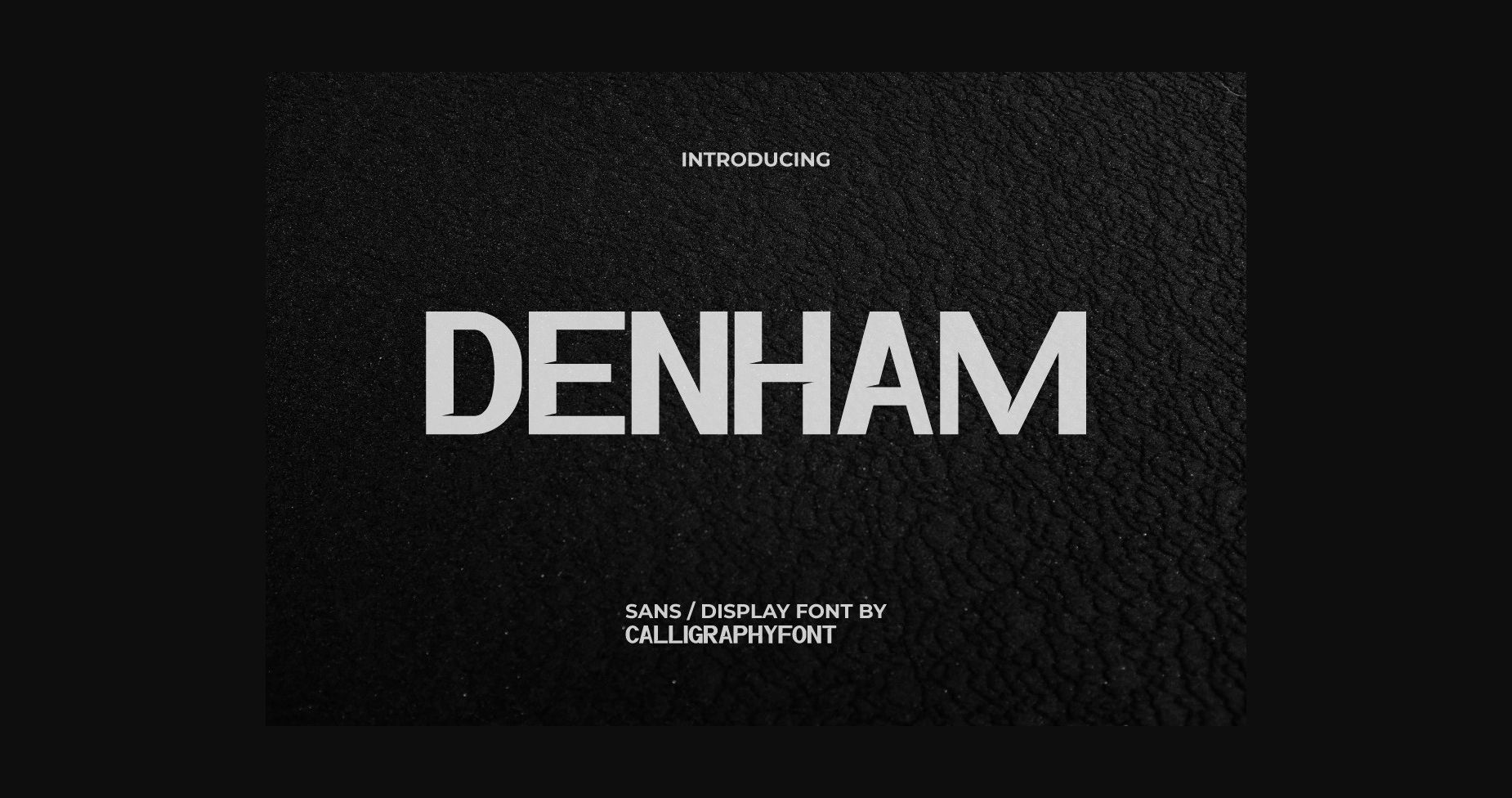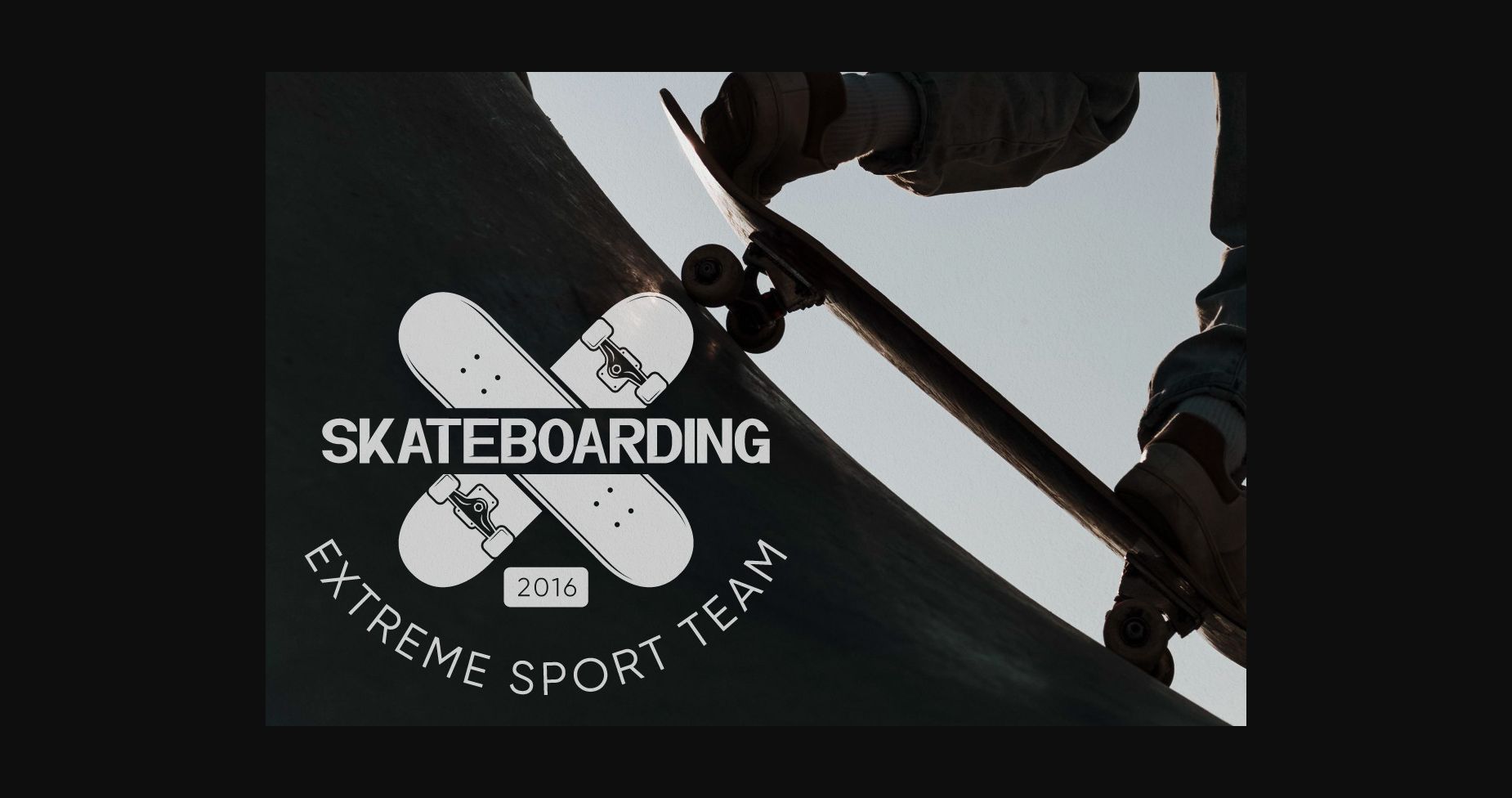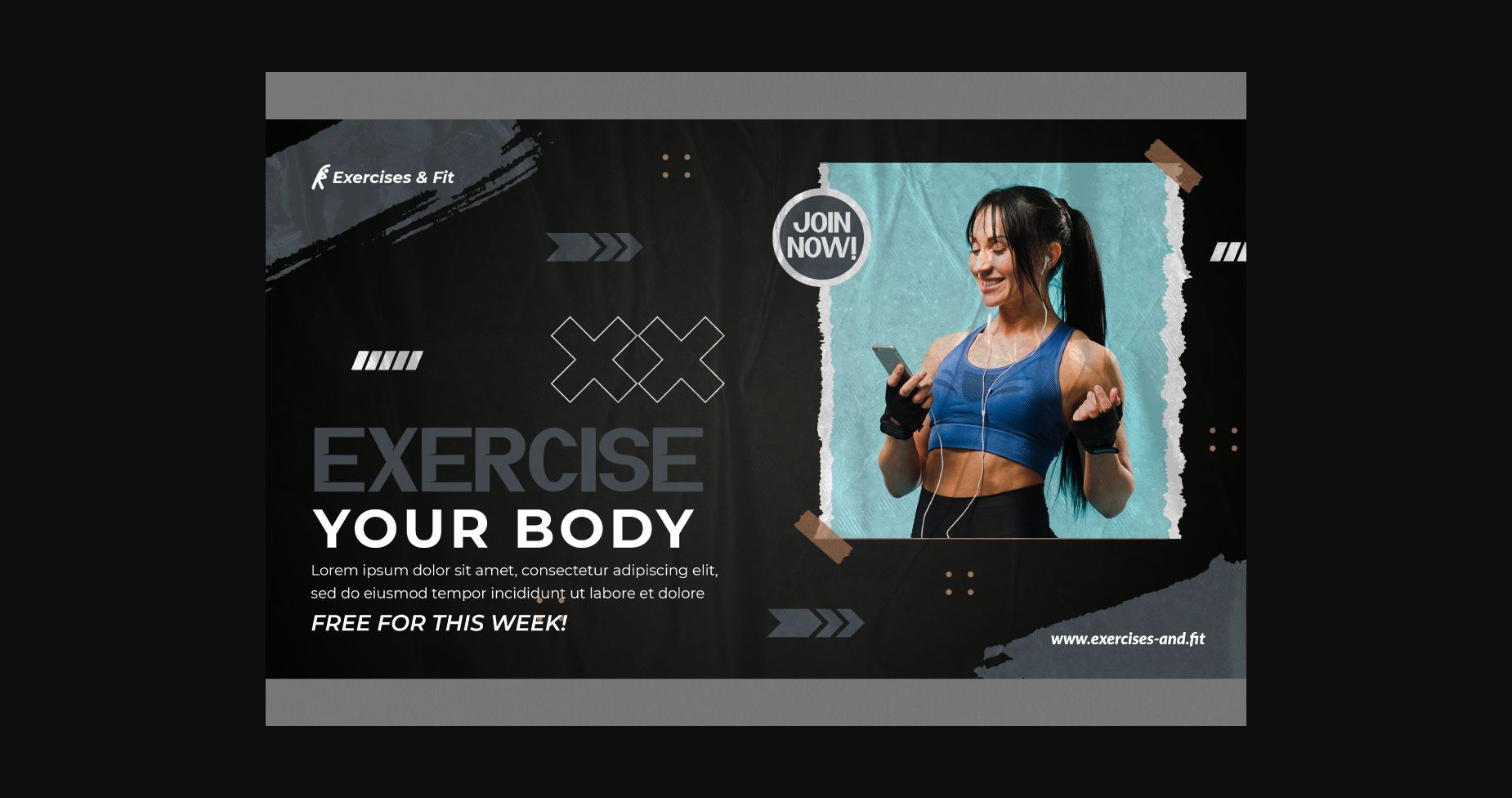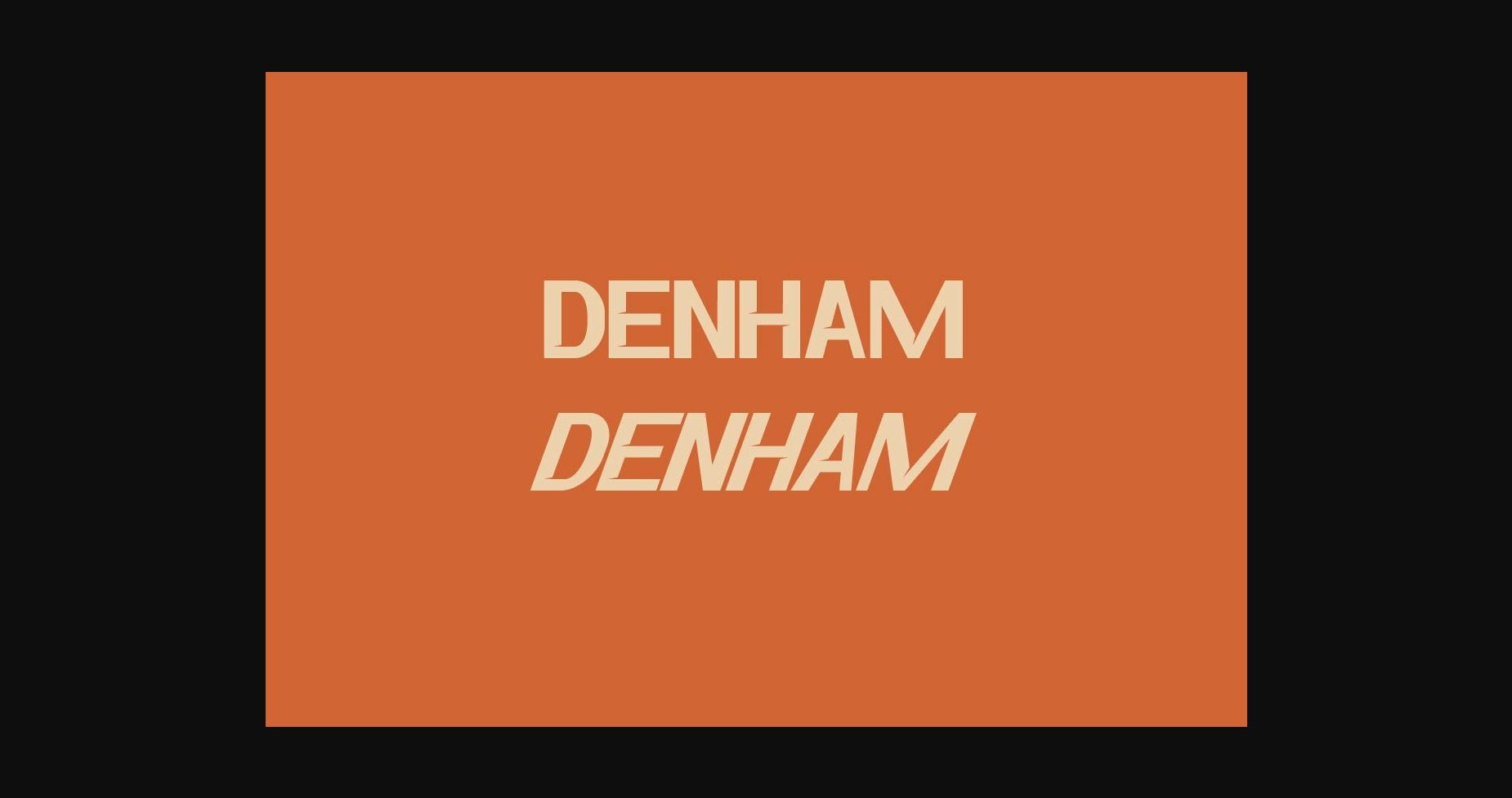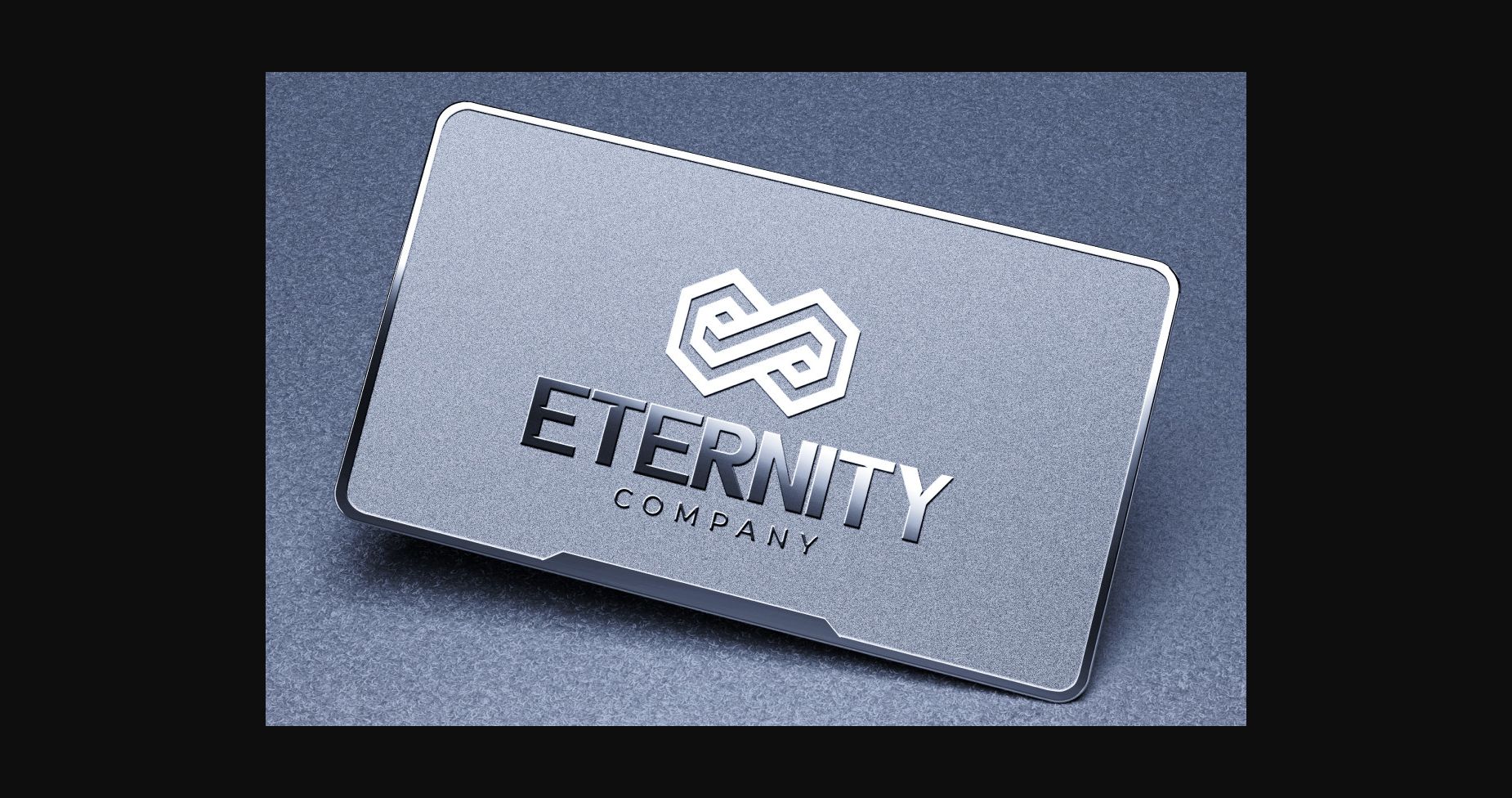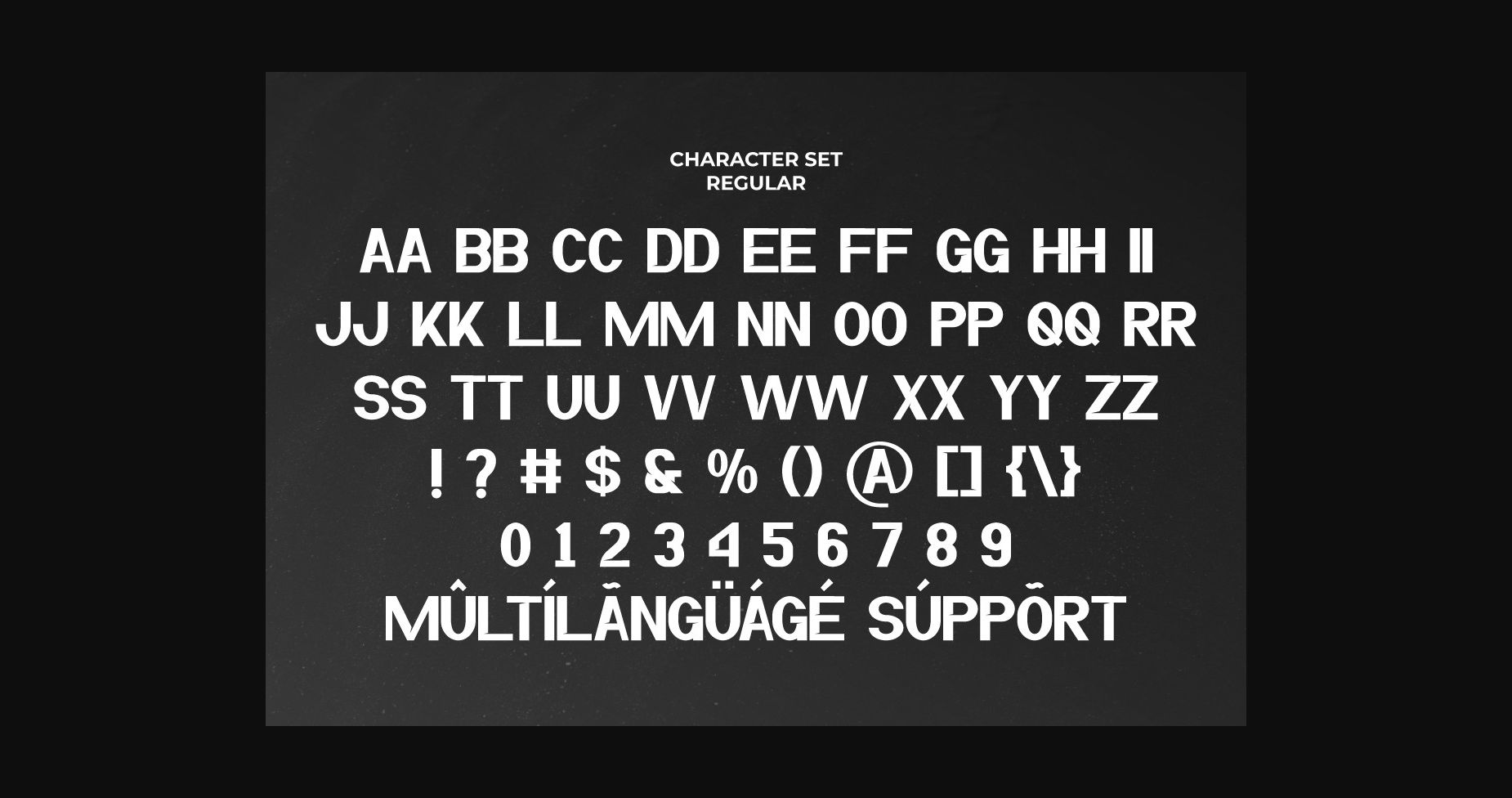
About Denham Font
Denham is a bold and thick lettered sans serif font. It can easily be matched to an incredibly large set of projects, so add it to your creative ideas and notice how it makes them stand out!